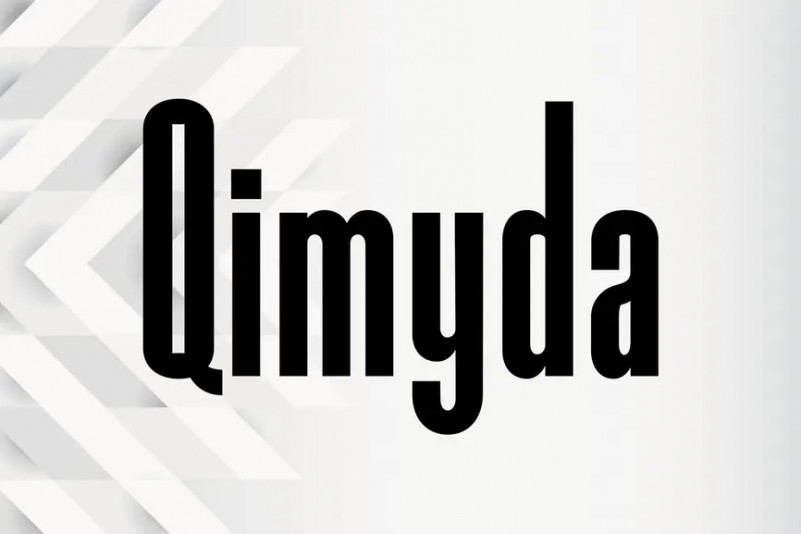
Qimyda Font
Qimyda is a modern Sans Serif which is perfect for logos, name card, magazine layouts, invitations, headers, posters, branding, packaging.